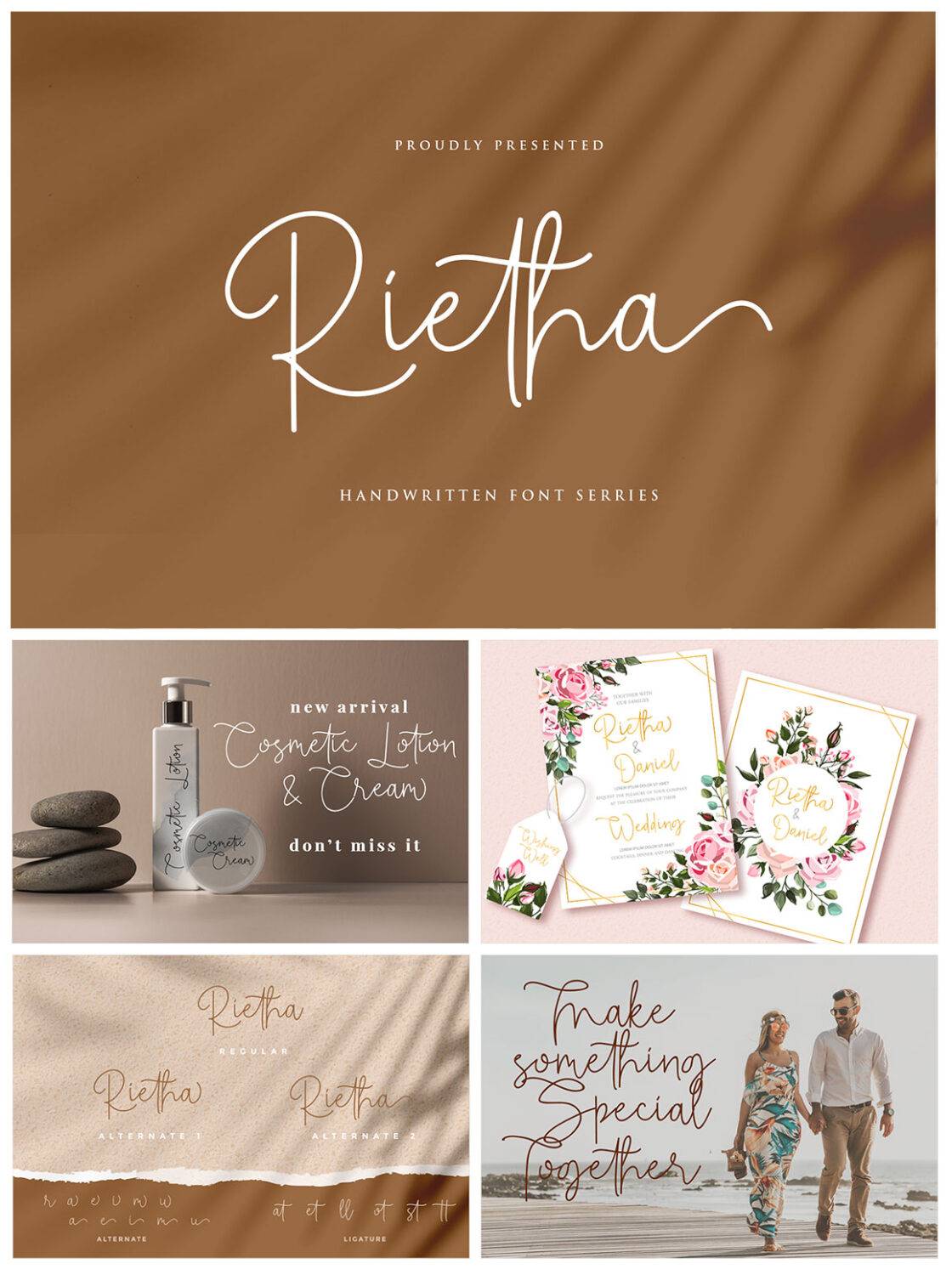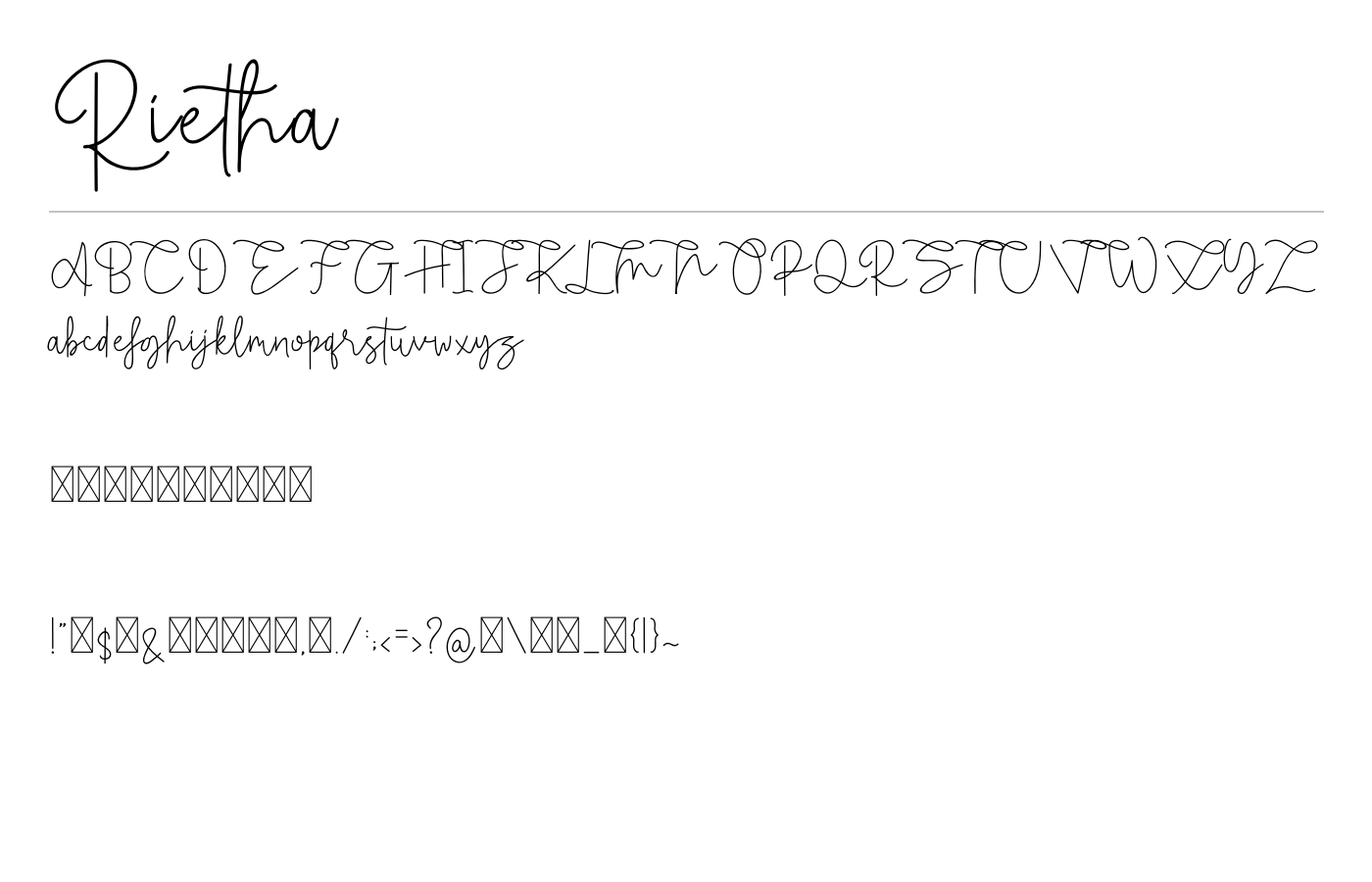
Rietha is a delicate, handwritten script font with elegant, flowing lines and a slender stroke that gives it a light and airy feel. Its whimsical uppercase letters feature unique flourishes, making it perfect for adding a personal, romantic touch to invitations, branding, and creative projects. This font works best in decorative headlines and logos where a graceful, stylish personality is desired.
Rietha Font
About Rietha Font
| Font family | Rietha Font |